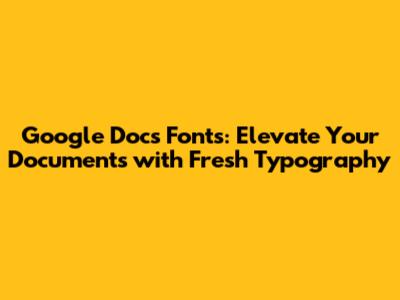
Hey everyone! Are you ready to jazz up your Google Docs? We're diving deep into the world of Google Docs fonts, exploring all the latest additions and helping you find the perfect typeface to make your documents pop. Whether you're a student, a professional, or just someone who loves a well-designed piece of writing, choosing the right font can make a huge difference. Think of it like this: your font is the outfit your words wear. It can instantly make your document more readable, stylish, and engaging. So, let's get started on this awesome journey and explore how you can make your Google Docs stand out from the crowd! We will discuss everything you need to know about the best fonts for Google Docs, including how to find and use them.
Unveiling the Latest Google Docs Font Updates
Alright, folks, let's talk about what's new! Google Docs is always evolving, and that includes adding fresh fonts to keep things interesting. Staying up-to-date with Google Docs font updates is crucial to keeping your documents looking modern and on-trend. Every now and then, Google rolls out new fonts and improvements to the existing library. These updates are a game-changer because they give you access to a wider range of styles, from classic serifs to sleek sans-serifs, and everything in between. The variety allows you to tailor your document's appearance to suit its purpose, whether you are preparing a formal report, a casual email, or a creative writing piece. Regularly checking for updates ensures you have the most up-to-date and diverse selection available. So, how can you keep tabs on these Google Docs font updates? The best way is to keep an eye on the official Google Workspace updates blog and other tech news sources. These channels provide announcements about new features, including font additions. You can also explore the font menu within Google Docs itself, which is typically updated automatically. By taking these simple steps, you'll always be in the loop and ready to experiment with the newest typography options. That means your documents will never look outdated! The goal is to always make your documents look fresh and modern.
One of the coolest things about the new fonts in Google Docs is how they cater to various needs and tastes. Whether you're into clean, minimalist designs or something more playful and expressive, there is a font that suits your vision. This expanded library also helps to ensure that Google Docs remains a versatile tool for everyone, from students and teachers to business professionals and creative writers. With each font update, Google aims to improve the overall user experience by providing more options for visual communication. The key is to explore these updates and experiment with different fonts to discover what works best for your projects. Don't be afraid to try out new styles! You might be surprised at how much a fresh font can enhance the look and feel of your documents. So, keep an eye out for those updates, and get ready to transform your Google Docs into visually stunning masterpieces!
This also allows users to easily integrate with their existing brand guidelines, ensuring consistency across all communications. Additionally, the inclusion of more diverse font families supports accessibility, making documents more readable for everyone. The best way to stay current is to regularly check Google's official announcements and explore the font menu within Google Docs for the latest additions. That way, you won't miss out on any exciting new typography options. Regularly updating your fonts adds to the overall value.
Decoding the Google Docs Fonts List: Your Ultimate Guide
Now that we are all excited about new fonts, let's get into the nitty-gritty of the Google Docs fonts list. Knowing your way around this list is like having a secret weapon in your document design arsenal. It's the key to making informed choices and creating documents that not only look good but also effectively communicate your message. The Google Docs font library is extensive and diverse, offering a wide array of options to suit every need. From classic serif fonts like Times New Roman and Georgia to modern sans-serifs like Arial and Open Sans, the list has something for everyone. This variety means you can easily find the perfect font to match the tone and purpose of your document.
Each font has its own unique characteristics and best-use scenarios. Serif fonts, with their small decorative strokes, often work well for body text in printed documents, as they can enhance readability. Sans-serif fonts, on the other hand, are typically cleaner and more modern, making them ideal for digital displays and headings. Beyond these basic categories, the Google Docs font list includes specialized fonts for specific purposes, such as monospace fonts for coding or handwriting-style fonts for creative projects. Understanding the qualities of each font and how it aligns with your project goals is a key step in using this list effectively. Start by exploring the categories and browsing through the options. Experiment with different fonts to see how they look in your documents. Consider factors like readability, style, and the overall impact you want to create. That will help you identify the fonts that best meet your needs. In addition to the standard fonts, Google Docs also allows you to add custom fonts, which opens up even more possibilities. It is important to remember that the perfect font choice will depend on the context of your document and your personal preferences. The best way to master this list is by exploring, experimenting, and finding fonts that resonate with your style and goals.
Best fonts for Google Docs can enhance the way we present information. By understanding the list, we can make informed choices about which fonts to use and when. The ultimate goal is to create documents that are both visually appealing and effectively communicate your message. Understanding the wide array of choices on the Google Docs fonts list is key. From classic serifs, like Times New Roman and Georgia, to modern sans-serifs like Arial and Open Sans, you can find a font that suits your style. Whether you are aiming for a formal, professional look or a more casual and creative style, the Google Docs fonts list has something for everyone. You can easily find the perfect font to match the tone and purpose of your document. The ability to customize your font selection is an awesome tool to have in your arsenal.
Choosing the Best Fonts for Google Docs: Tips and Tricks
Alright, let's talk about picking the best fonts for Google Docs! This is where the magic happens. Selecting the right font can transform a plain document into something truly captivating. The trick is to know what to look for and how to use different fonts to your advantage. First off, consider your audience and the purpose of your document. Are you writing a formal business report, a fun blog post, or a creative story? The context will dictate the most appropriate font choice. For example, serif fonts (like Times New Roman or Garamond) are usually great for body text in printed materials because they help guide the eye. However, sans-serif fonts (like Arial or Helvetica) often work better on screens because they are clean and easy to read.
Next up, focus on readability. No matter how stylish a font might look, it has to be easy to read. Choose fonts with clear letterforms, especially if your document has a lot of text. The size of the font also plays a huge role. Make sure the font is large enough to be easily read, but not so big that it overwhelms the page. It's all about balance! Don't be afraid to try out different font sizes and see what works best. Another important tip is to pay attention to font pairing. Combining different fonts can create a dynamic and visually appealing look. But be careful not to overdo it! Too many fonts can make your document look cluttered and unprofessional. As a general rule, stick to two or three fonts at most. You can use one font for headings and another for body text, or use different weights and styles of the same font for variety. Remember to use the font that's best for the audience! Consider what they expect to see and what will make the document the easiest to understand. When you put all this together, you can create documents that are both visually stunning and effective. Remember to experiment and have fun with it! Keep trying out different fonts and combinations until you find something that you love. That is the key to creating documents that are both informative and captivating.
Best fonts for Google Docs are ones that suit your writing needs and reflect your message. With the right fonts, you can make a huge impact on how readers perceive your work. Whether it's a sleek sans-serif for a modern look or a classic serif for a touch of elegance, the options are there. The goal is to make sure your documents are not only informative but also visually appealing. Experimenting with different fonts and finding combinations that you like is a fun way to improve your writing! You can enhance the look and feel of your documents and improve overall readability. From formal business reports to creative projects, having the right fonts makes your writing more effective.